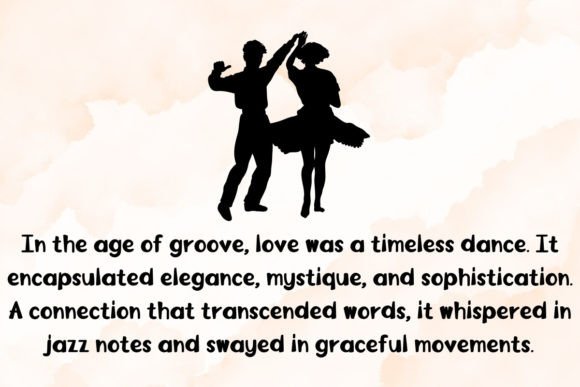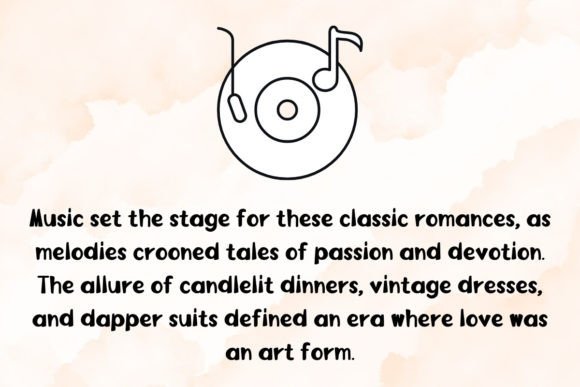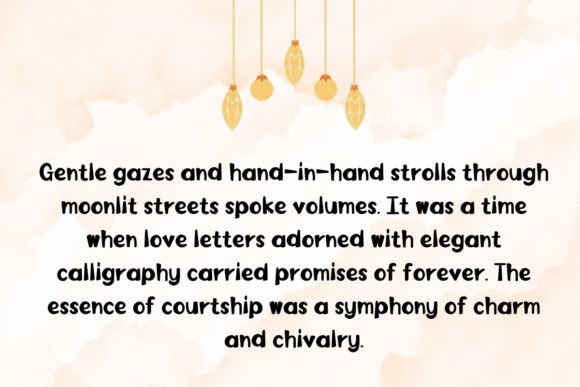
Introduction to Groovy Era Typeface Font
As we look back on the classic elegance of Groovy Era, we are reminded that some things never go out of style – the timelessness of true love, wrapped in the allure of an unforgettable era.
Why Choose Groovy Era Typeface Font?
Groovy Era Typeface Font offers exceptional quality and versatility, making it a valuable addition to your design toolkit. Whether you’re creating for personal projects or commercial use, Groovy Era Typeface Font delivers professional results.